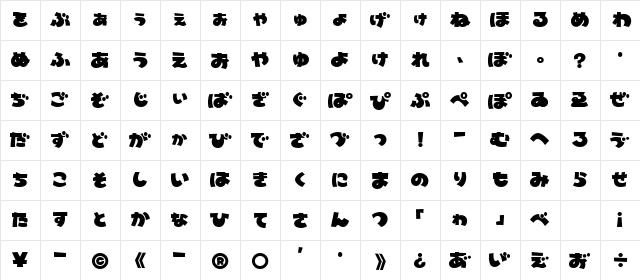
MinnanoUtaHR Regular
Design Context for MinnanoUtaHR Typeface
MinnanoUtaHR offers clean, dependable letterforms without strong stylistic allegiance, making it a practical choice for designers who need flexibility.